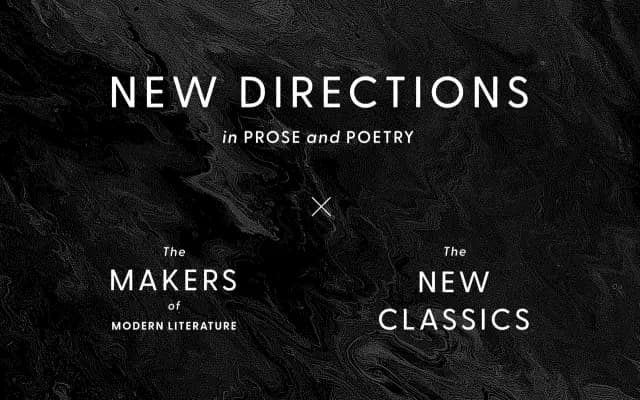
Greycliff CF
A geometric near-monoline sans in nine weights with broad multilingual coverage spanning Latin, Cyrillic, Greek and Vietnamese.
Built on a geometric, near-monoline skeleton, Greycliff CF tempers its classic construction with softened edges that give it a warmer quality than strictly mechanical geometric faces. The family runs across nine weights from Thin to Heavy, each with an oblique companion for a total of 18 styles. Language support is unusually wide, covering Belarusian, Bulgarian, Greek, Ukrainian, Vietnamese, Pinyin and over 30 additional languages.
Near-monoline construction with geometric underpinning places it firmly in the geometric sans category, though softened terminals and warm stroke modulation distinguish it from strictly mechanical geometric designs.